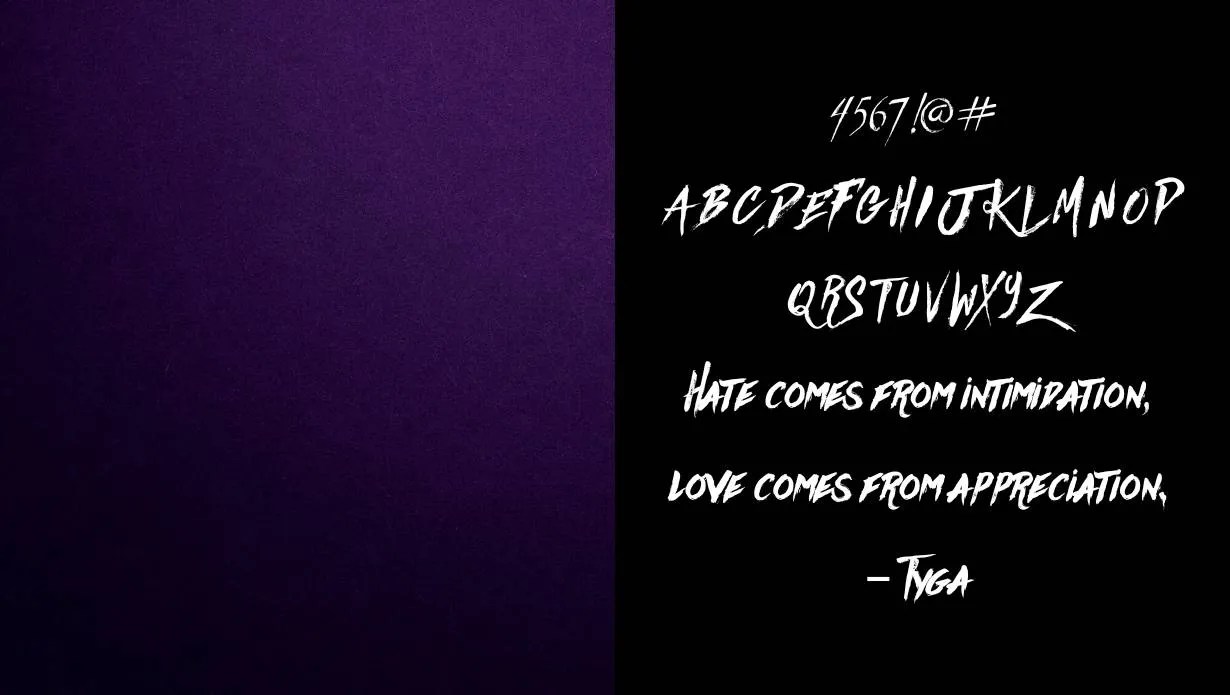
Bad Bunny Logo Font . The font for the bad bunny logo is just as engaging as the icon. Collection of fonts for bad bunny. The rabbit head is distinguishable by its prominent ears and a crescent nose, as well as eyes designed in the shape of the plus sign. It gives your design the dry brush effect along. Use our free bad bunny font generator tool to create awesome images and. From his signature bunny ears to the bright colors and sharp lines, the bad bunny logo is a symbol of his style and success. Collection of fonts for bad bunny. Bad bunny font is created with a real brush pen by a hugely talented designer. In this article, we’ll take a look at the history and meaning behind bad bunny’s logo and explore how it has become an iconic part of the artist’s brand. The rapper likely settled on a rabbit head as a symbol of fortune, comfort, and intelligence. Here you can download yourself a copy of the bad bunny font for free. The name of the rapper is in all capital letters, a testament to his bold and engaging attitude. As the name implies, the bad bunny logo features a bunny head clad in neutral colors and printed in a bold wordmark.
Collection of fonts for bad bunny. Bad bunny font is created with a real brush pen by a hugely talented designer. The name of the rapper is in all capital letters, a testament to his bold and engaging attitude. The rabbit head is distinguishable by its prominent ears and a crescent nose, as well as eyes designed in the shape of the plus sign. The font for the bad bunny logo is just as engaging as the icon. As the name implies, the bad bunny logo features a bunny head clad in neutral colors and printed in a bold wordmark. Use our free bad bunny font generator tool to create awesome images and. It gives your design the dry brush effect along. Here you can download yourself a copy of the bad bunny font for free. In this article, we’ll take a look at the history and meaning behind bad bunny’s logo and explore how it has become an iconic part of the artist’s brand.
Bad Bunny Logo Font Here you can download yourself a copy of the bad bunny font for free. The rabbit head is distinguishable by its prominent ears and a crescent nose, as well as eyes designed in the shape of the plus sign. As the name implies, the bad bunny logo features a bunny head clad in neutral colors and printed in a bold wordmark. The name of the rapper is in all capital letters, a testament to his bold and engaging attitude. The rapper likely settled on a rabbit head as a symbol of fortune, comfort, and intelligence. The font for the bad bunny logo is just as engaging as the icon. Use our free bad bunny font generator tool to create awesome images and. Collection of fonts for bad bunny. Bad bunny font is created with a real brush pen by a hugely talented designer. In this article, we’ll take a look at the history and meaning behind bad bunny’s logo and explore how it has become an iconic part of the artist’s brand. From his signature bunny ears to the bright colors and sharp lines, the bad bunny logo is a symbol of his style and success. It gives your design the dry brush effect along. Collection of fonts for bad bunny. Here you can download yourself a copy of the bad bunny font for free.
Bad Bunny Font by Inermedia STUDIO · Creative Fabrica Bad Bunny Logo Font The rabbit head is distinguishable by its prominent ears and a crescent nose, as well as eyes designed in the shape of the plus sign. Bad bunny font is created with a real brush pen by a hugely talented designer. It gives your design the dry brush effect along. Collection of fonts for bad bunny. Collection of fonts for bad. Bad Bunny Logo Font.
Bad Bunny Font Fontzaa Exclusive Fonts Library Bad Bunny Logo Font It gives your design the dry brush effect along. Here you can download yourself a copy of the bad bunny font for free. The rapper likely settled on a rabbit head as a symbol of fortune, comfort, and intelligence. From his signature bunny ears to the bright colors and sharp lines, the bad bunny logo is a symbol of his. Bad Bunny Logo Font.
Bad Bunny Font Free Download Bad Bunny Logo Font The name of the rapper is in all capital letters, a testament to his bold and engaging attitude. It gives your design the dry brush effect along. Use our free bad bunny font generator tool to create awesome images and. The font for the bad bunny logo is just as engaging as the icon. Bad bunny font is created with. Bad Bunny Logo Font.
Bad Bunny Font Download Free Font Now Bad Bunny Logo Font Here you can download yourself a copy of the bad bunny font for free. Bad bunny font is created with a real brush pen by a hugely talented designer. The rabbit head is distinguishable by its prominent ears and a crescent nose, as well as eyes designed in the shape of the plus sign. The rapper likely settled on a. Bad Bunny Logo Font.
What’s the font Bad Bunny uses here? r/BadBunnyPR Bad Bunny Logo Font Here you can download yourself a copy of the bad bunny font for free. Bad bunny font is created with a real brush pen by a hugely talented designer. The font for the bad bunny logo is just as engaging as the icon. It gives your design the dry brush effect along. Collection of fonts for bad bunny. The rapper. Bad Bunny Logo Font.
Bad Bunny Font Svg 302+ SVG File for Cricut Bad Bunny Logo Font As the name implies, the bad bunny logo features a bunny head clad in neutral colors and printed in a bold wordmark. Here you can download yourself a copy of the bad bunny font for free. From his signature bunny ears to the bright colors and sharp lines, the bad bunny logo is a symbol of his style and success.. Bad Bunny Logo Font.
Bad Bunny Logo Exploring The Bad Bunny Symbol, Fonts And Colors Bad Bunny Logo Font As the name implies, the bad bunny logo features a bunny head clad in neutral colors and printed in a bold wordmark. The font for the bad bunny logo is just as engaging as the icon. The name of the rapper is in all capital letters, a testament to his bold and engaging attitude. Collection of fonts for bad bunny.. Bad Bunny Logo Font.
Bad Bunny Font Free Download Bad Bunny Logo Font It gives your design the dry brush effect along. Collection of fonts for bad bunny. As the name implies, the bad bunny logo features a bunny head clad in neutral colors and printed in a bold wordmark. Collection of fonts for bad bunny. Here you can download yourself a copy of the bad bunny font for free. The font for. Bad Bunny Logo Font.
Bad Bunny logo and some history behind the rapper LogoMyWay Bad Bunny Logo Font In this article, we’ll take a look at the history and meaning behind bad bunny’s logo and explore how it has become an iconic part of the artist’s brand. Collection of fonts for bad bunny. The rapper likely settled on a rabbit head as a symbol of fortune, comfort, and intelligence. The font for the bad bunny logo is just. Bad Bunny Logo Font.
Bad Bunny Font SVG Etsy Israel Bad Bunny Logo Font The rabbit head is distinguishable by its prominent ears and a crescent nose, as well as eyes designed in the shape of the plus sign. Collection of fonts for bad bunny. Bad bunny font is created with a real brush pen by a hugely talented designer. The rapper likely settled on a rabbit head as a symbol of fortune, comfort,. Bad Bunny Logo Font.